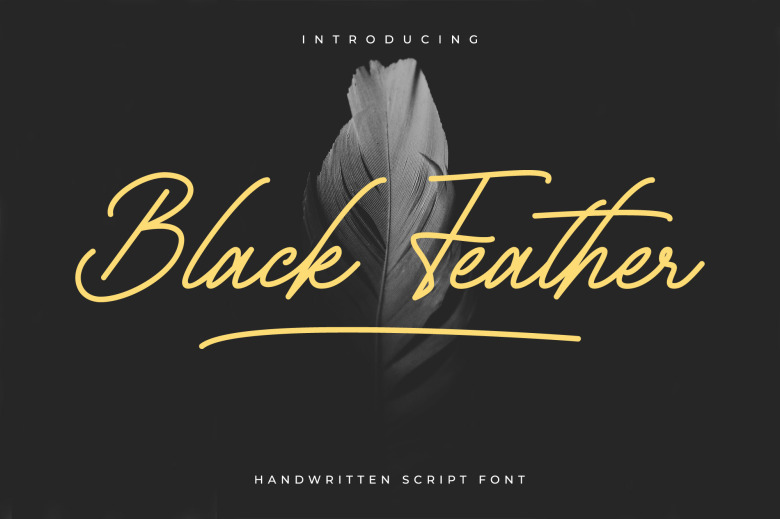
Black Feather Font
The next one is Black Feather. Black Feather is a delicate vintage styled handwritten script font, perfect for giving your projects a branded feel.
It’s Artist’s coture crafted with distinct and well balanced letters will make any design project look great. Fall in love with its incredibly versatile style and use it to create spectacular designs!
Black Feather Handwritten Script Font